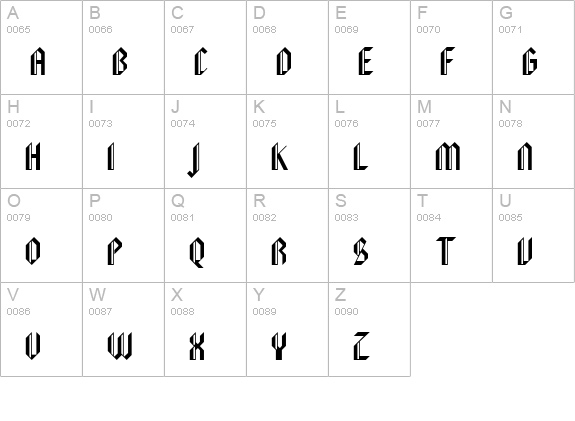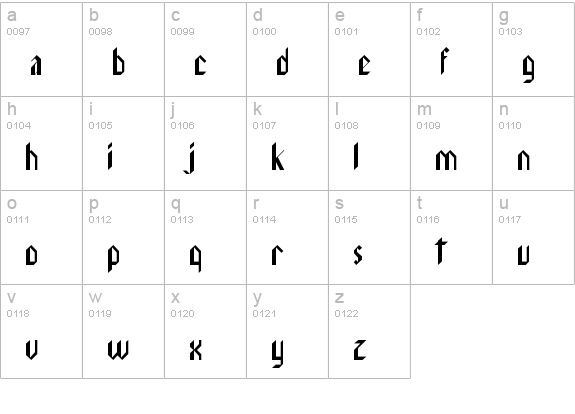
LeeBee Schwarz Font Details
LeeBee Schwarz is a stunning and modern font that exudes elegance and sophistication. With its bold and unique design, this font is perfect for adding a touch of creativity to any project. The sharp edges and sleek curves of LeeBee Schwarz make it stand out from the crowd, making it a great choice for headlines, logos, branding, and more. What sets LeeBee Schwarz apart from other fonts is not only its eye-catching style but also its accessibility. This font is freely available to download at FontsMarket.com, allowing designers and creatives to easily incorporate it into their work without any restrictions. Its availability as a free font opens up a world of possibilities for both personal and commercial use. Whether you're designing a website, creating a poster, or crafting a social media graphic, LeeBee Schwarz will elevate your project to the next level. Its versatility and legibility make it suitable for a wide range of applications, ensuring that your message gets across loud and clear. LeeBee Schwarz's attention to detail and sleek aesthetic make it a favorite among graphic designers and typographers alike. Its clean lines and harmonious proportions create a balanced and modern look that is sure to impress. The careful spacing and letterforms of this font ensure a smooth reading experience, making it a great choice for body text as well. With its free availability, LeeBee Schwarz is a font that shouldn't be missed. Download it today from FontsMarket.com and discover the endless possibilities it brings to your design projects. Let LeeBee Schwarz be the stylish and impactful font that takes your creations to new heights.